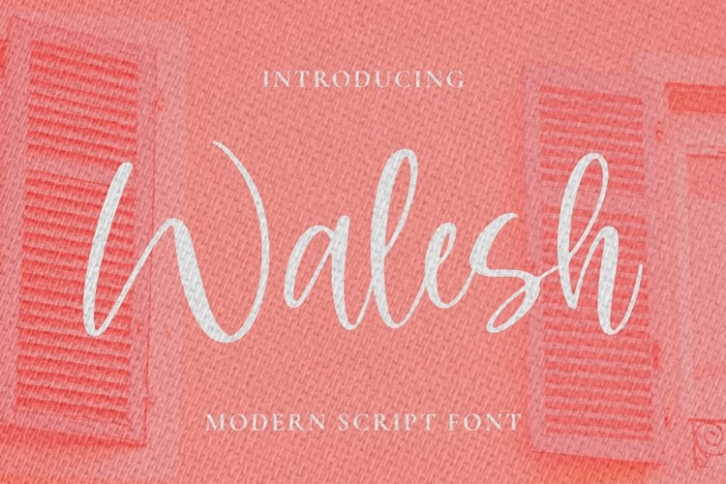
Walesh is a gorgeous font that was realeased on June 28, 2021. The font can be used in many style contexts and design environments. Perfect for invitations, magazines, websites, logos, and more! It was designed by plusstore and the file size is 9.50 MB. Thanks for checking out this font!